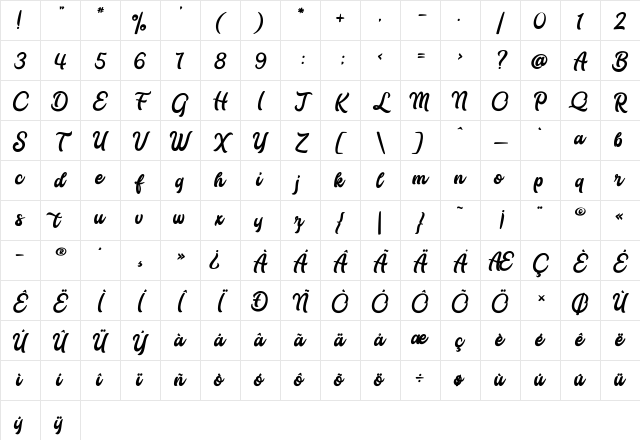
Popstar Regular Free Font
Popstar Regular
Foundry: Cat.B
Designer: Cat.B
Design Context for Popstar
Popstar is a composed and adaptable typeface that performs quietly and consistently across a wide range of design contexts.